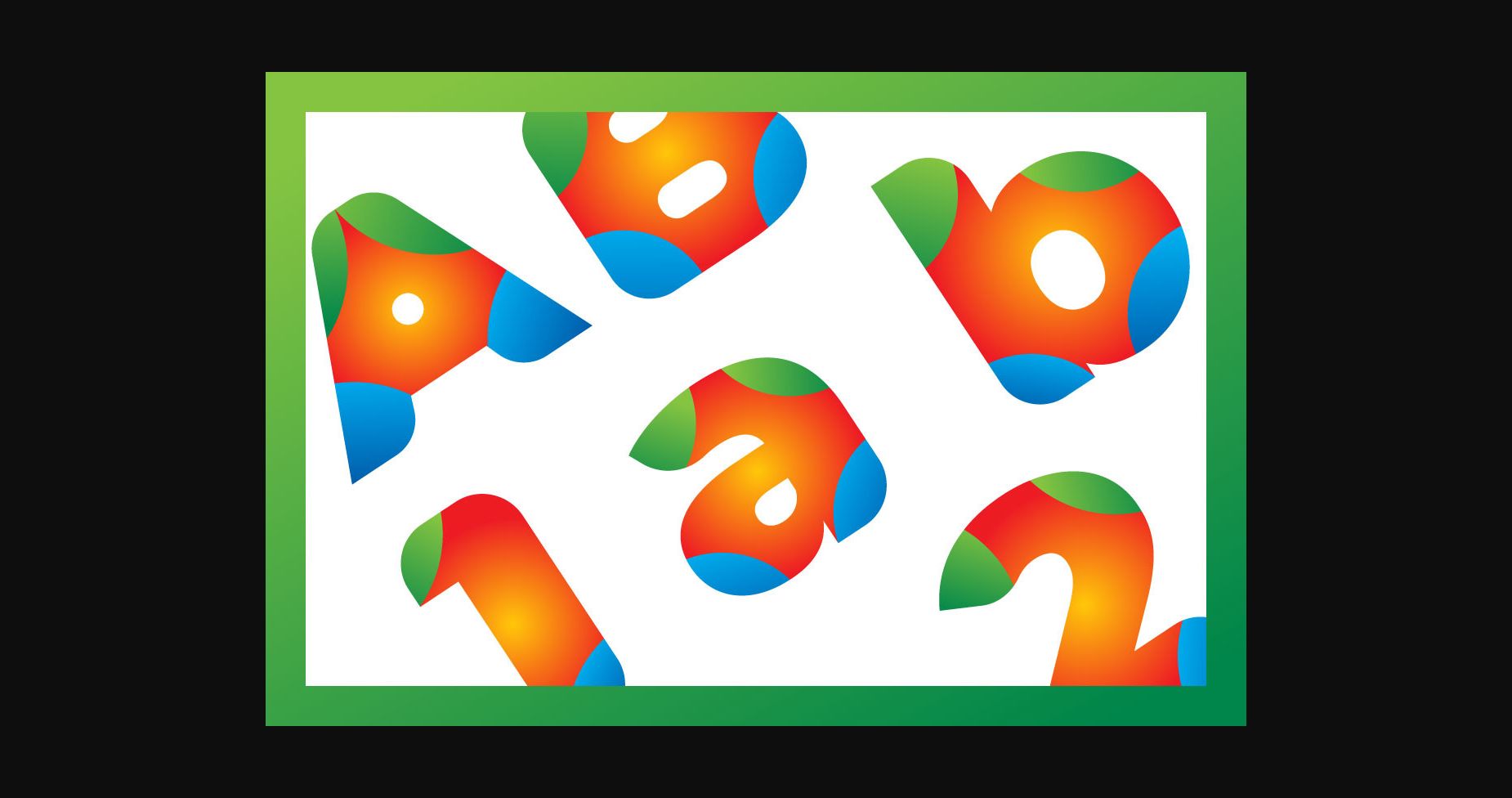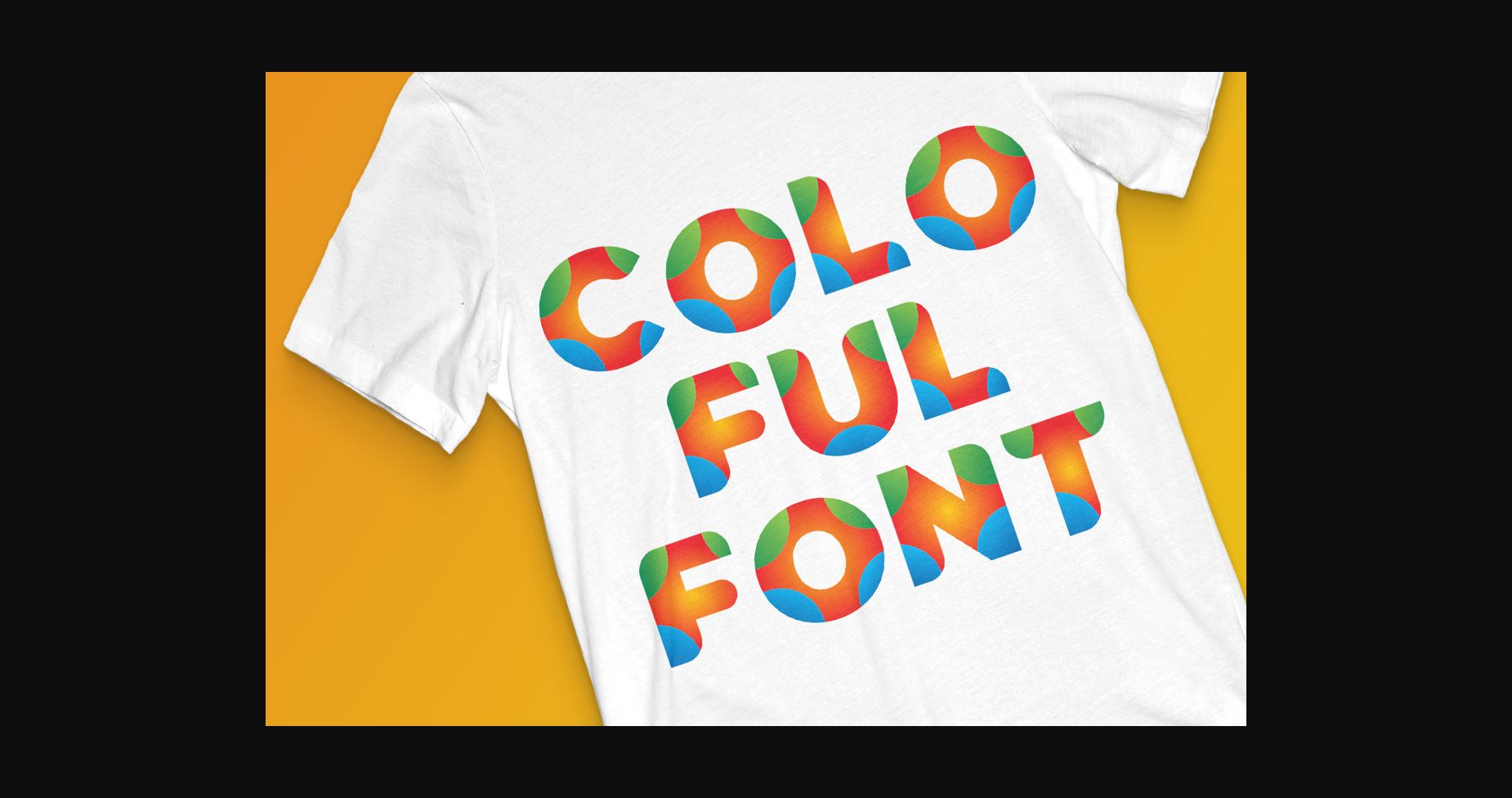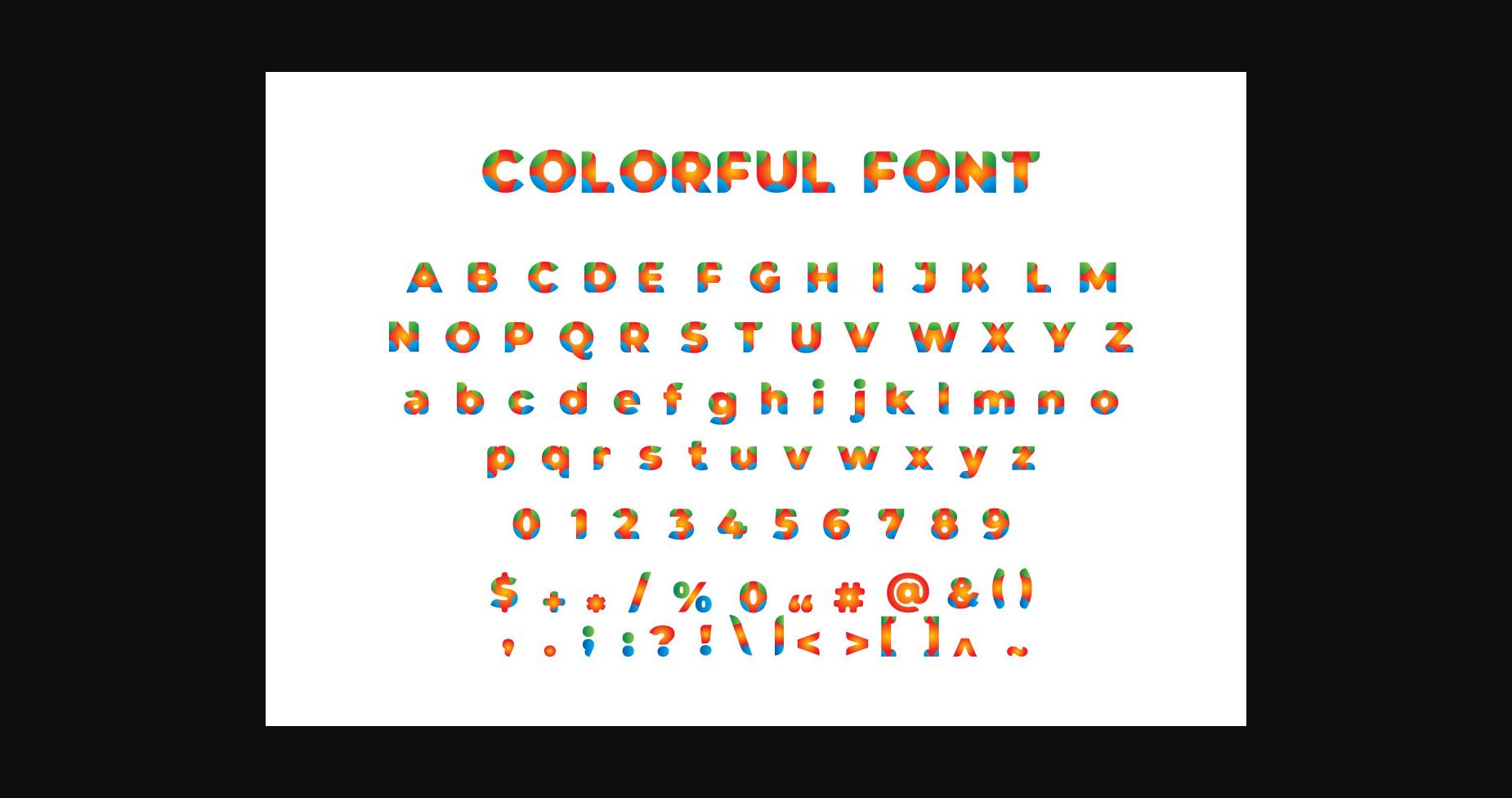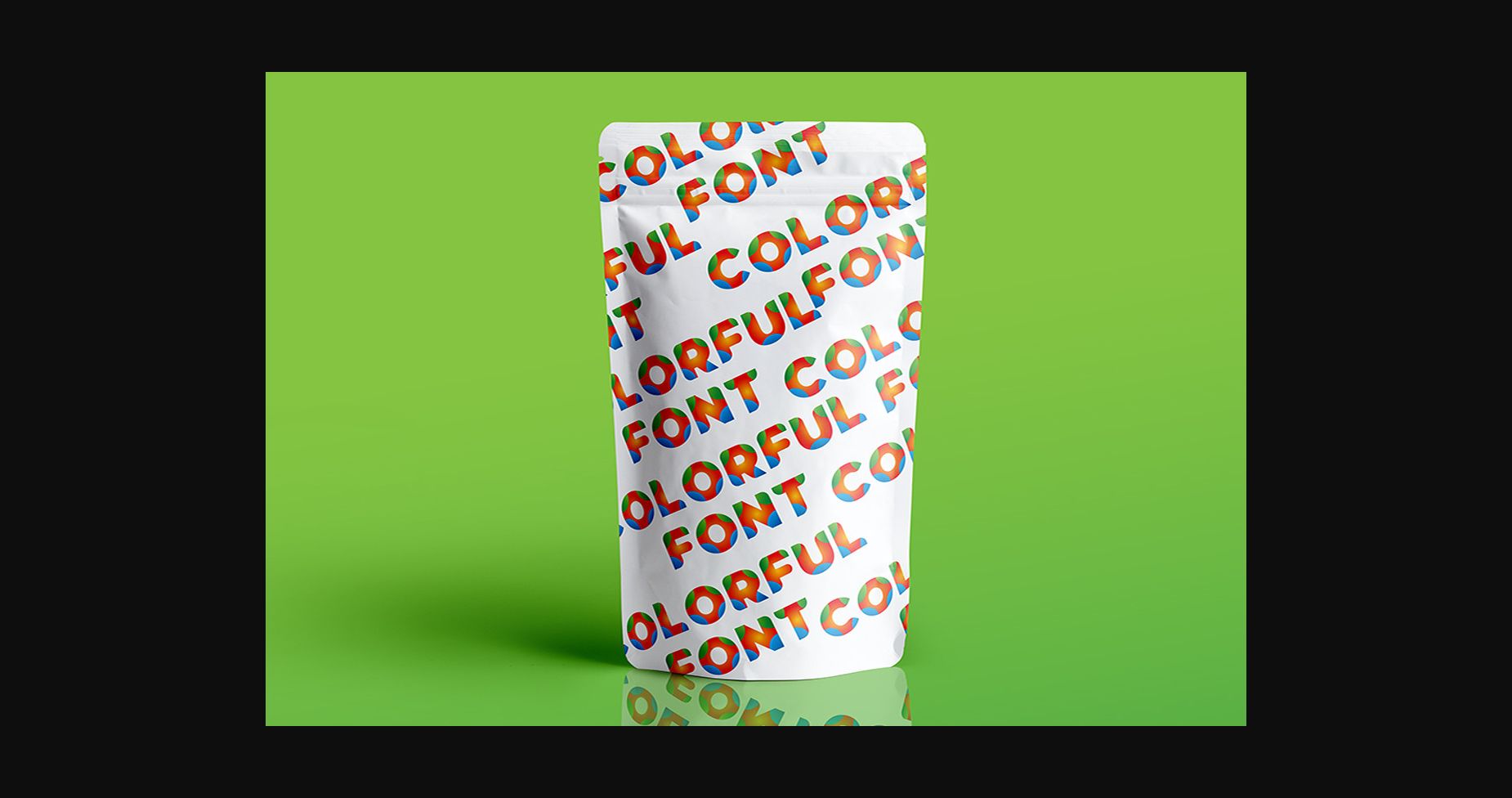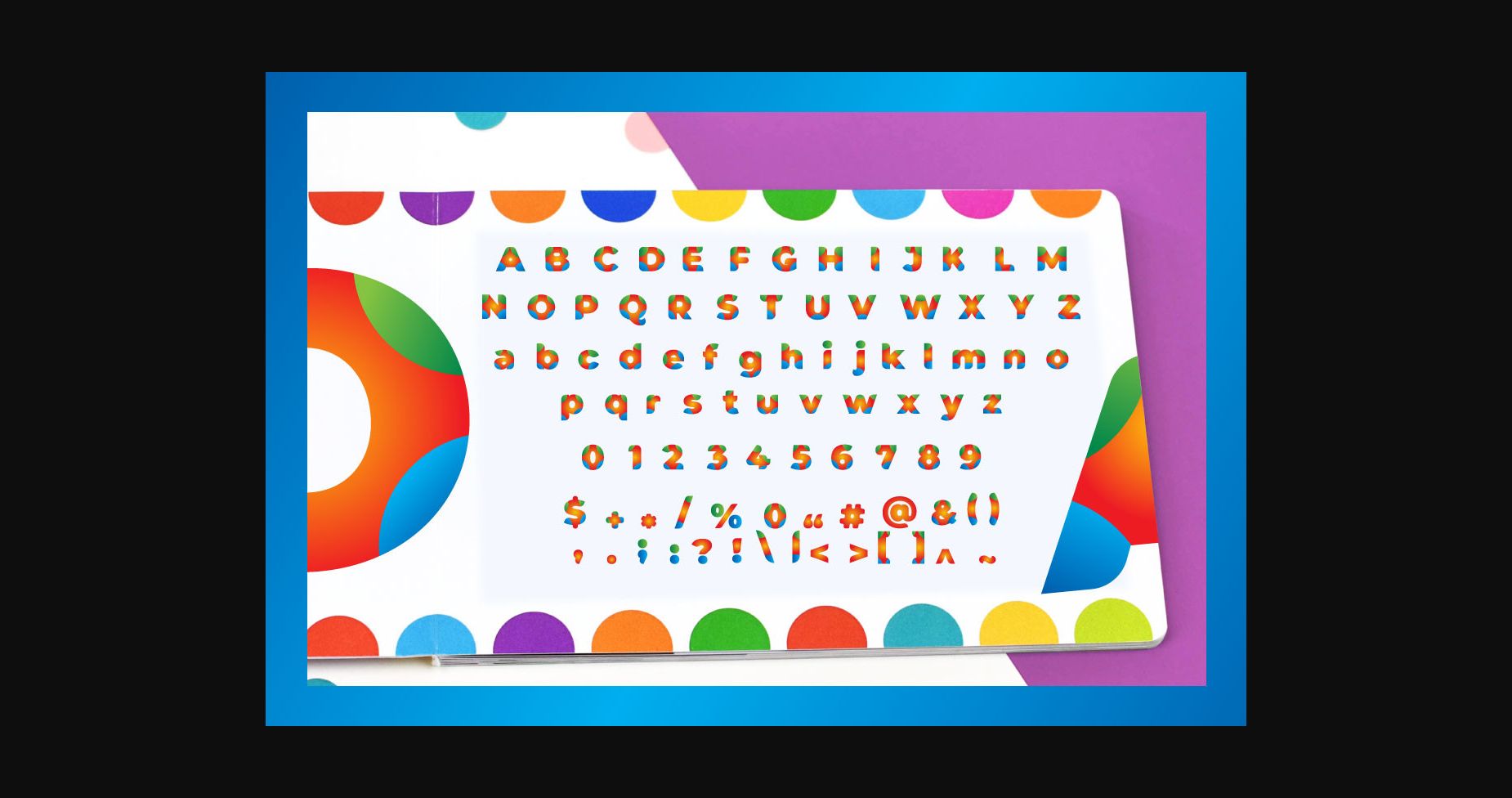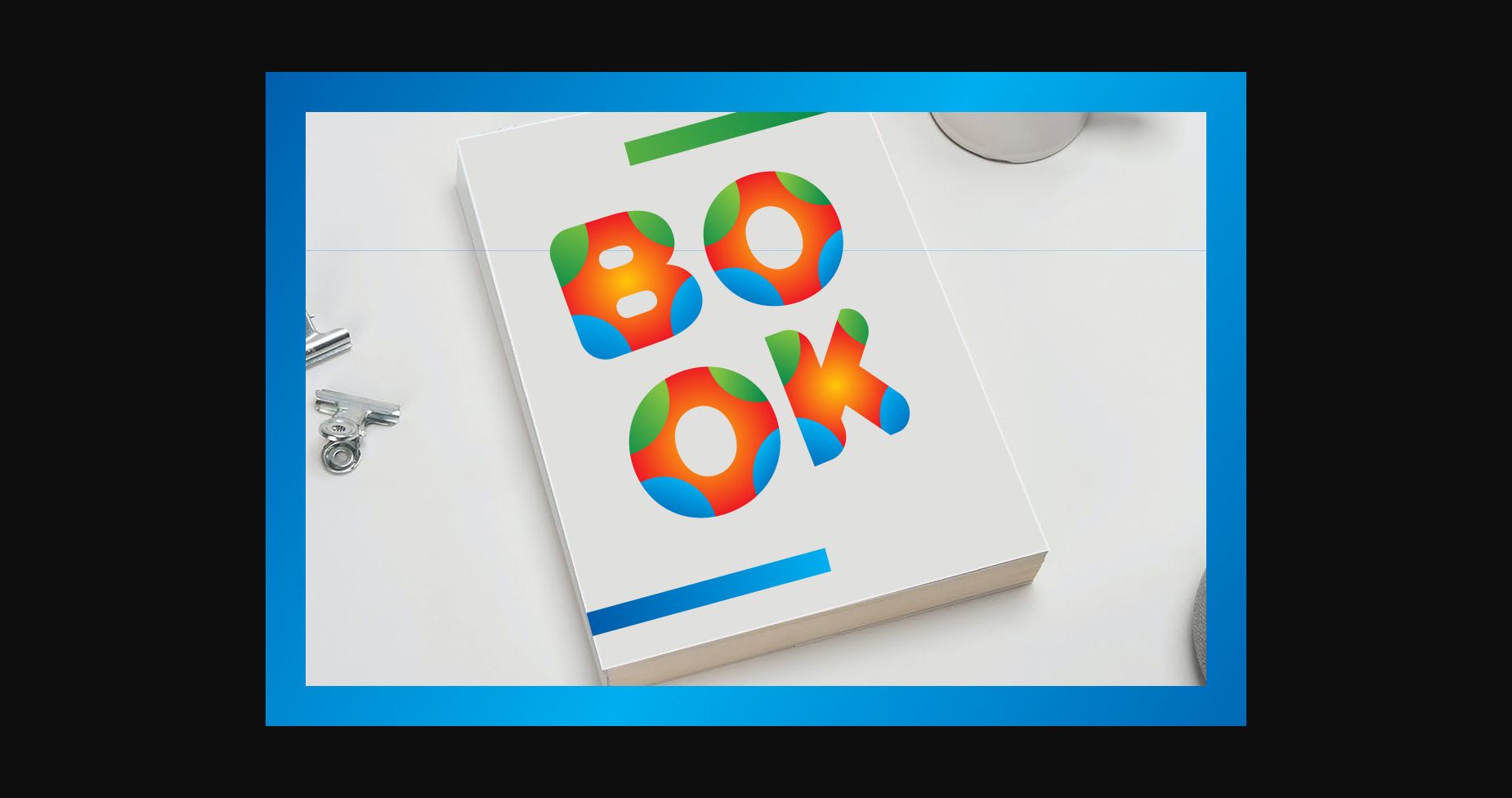
Colorful Font
About Colorful Font
Colorful is a colorful font with a dynamic feel. Get inspired by its unique charm, and turn any design idea into a stand-out! You can add this playful font on book titles, quotes, branding, clothing, t-shirt designs, fashion, magazines, and much more!